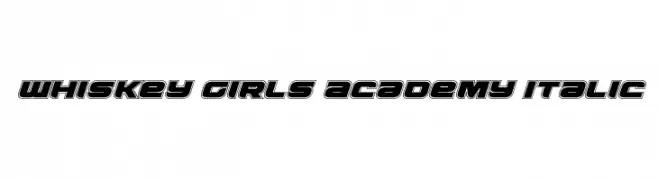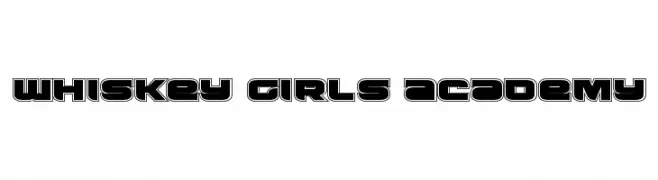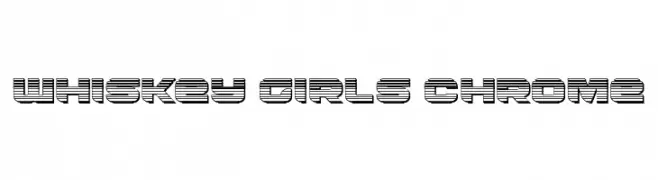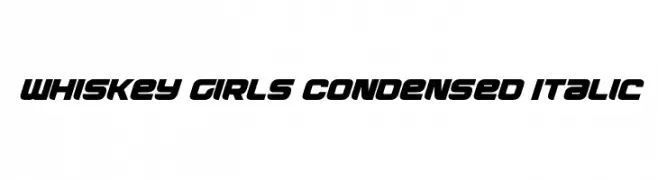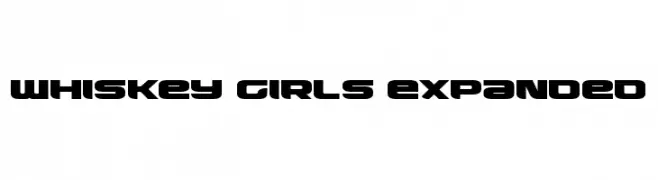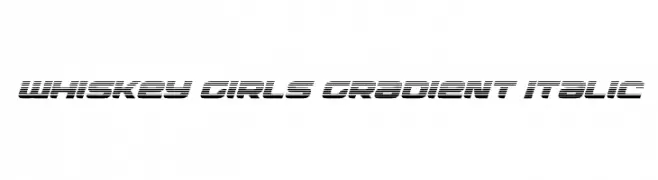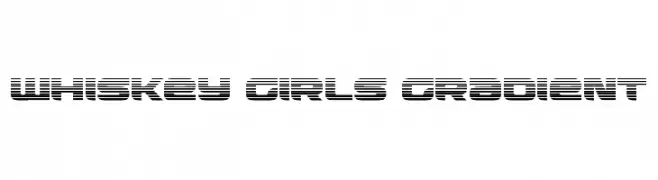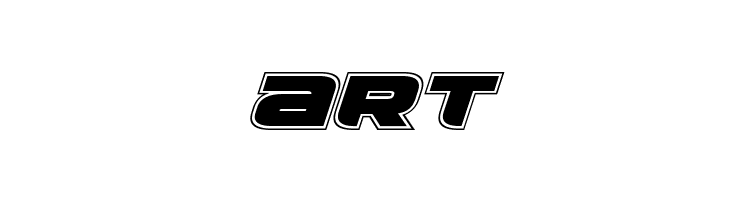
• Whiskey Girls Academy
A bold, outlined geometric font with a modern, futuristic style.
• Whiskey Girls Academy Italic
Bold, italic font with outlined, three-dimensional characters.
• Whiskey Girls Chrome
A bold, decorative font with a modern striped pattern and chrome-like effect.
• Whiskey Girls Chrome Italic
A bold, italicized font with a chrome-like, layered appearance.
• Whiskey Girls Condensed
A bold, condensed font with rounded edges, perfect for impactful headlines.
• Whiskey Girls Condensed Italic
A bold, condensed italic font with a modern and dynamic style.
• Whiskey Girls Expanded
A bold, expanded font with a modern, futuristic style.
• Whiskey Girls Expanded Italic
A bold, expanded, and italic font with a modern, dynamic style.
• Whiskey Girls Gradient
A bold, modern font with a gradient effect created by horizontal lines.
• Whiskey Girls Gradient Italic
A bold, italicized font with a gradient effect from horizontal lines, offering a modern and dynamic look.